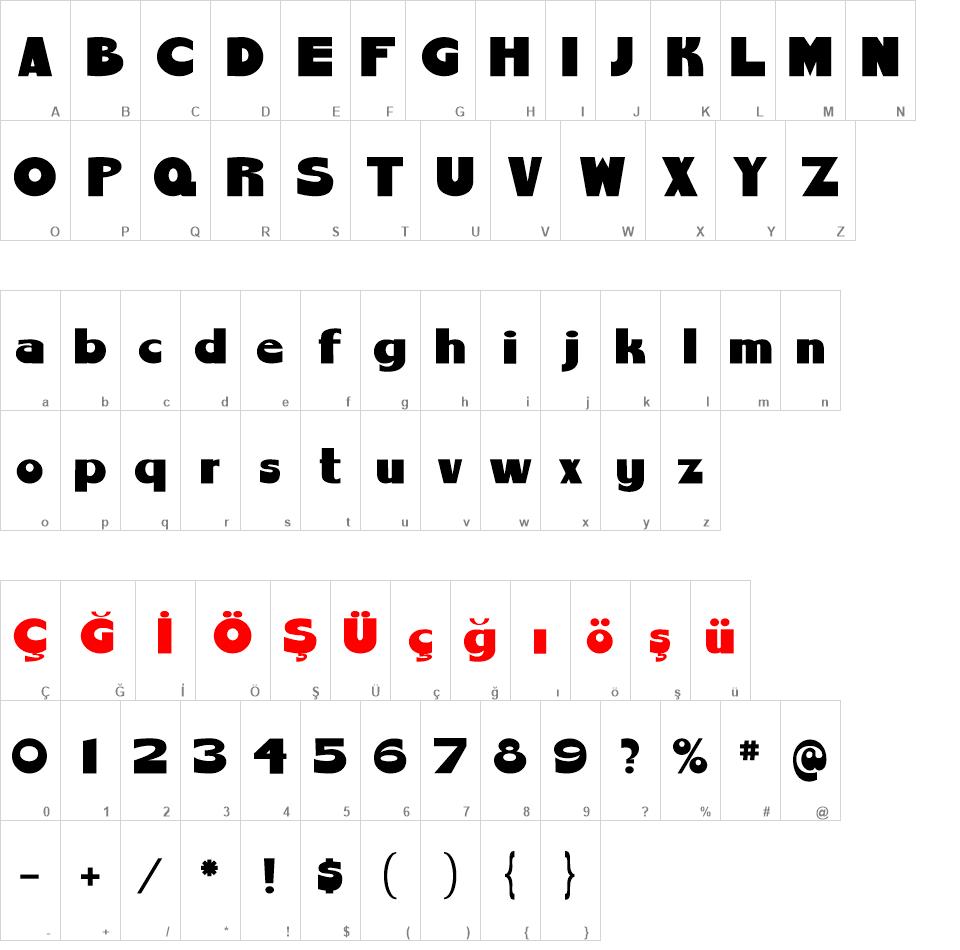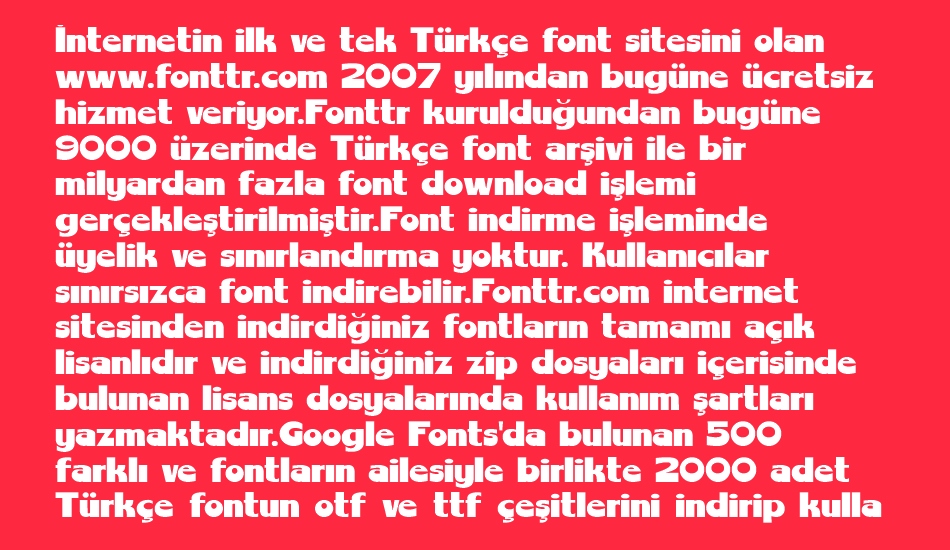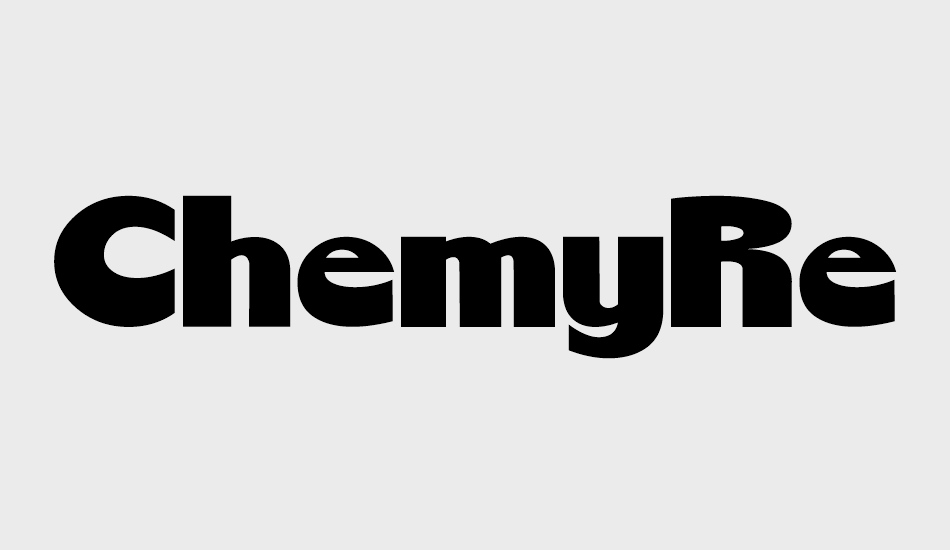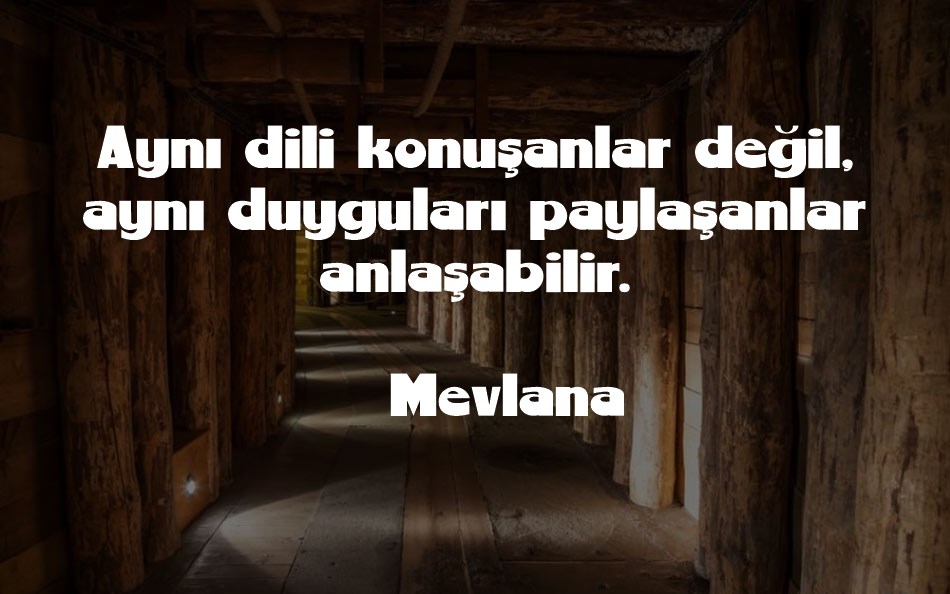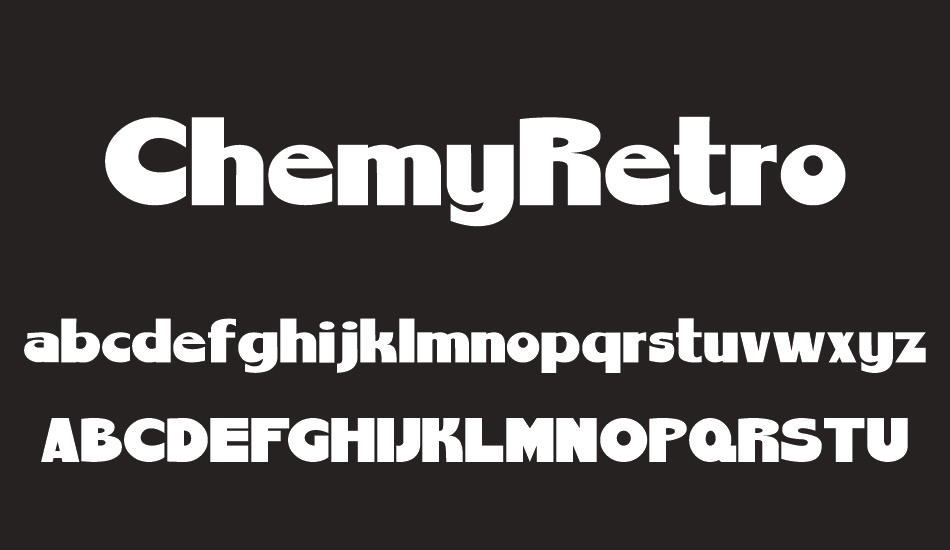
Chemy Retro font
ChemyRetro... Groooooooovy-fied!
This is a 60s-70s retro-styled font I did from scratch working with CorelDraw and FontForge. It is one of my first creations that I'm really proud of, and I wanted to share to the font/art community.
Included in the font are two Basic Latin Characters, Cyrillic, Greek, Vietnamese, Turkish and other foreign accented characters. There's also Punctuation, Currency, some Symbol and Letter-like characters, I may attempt to update soon with other characters.